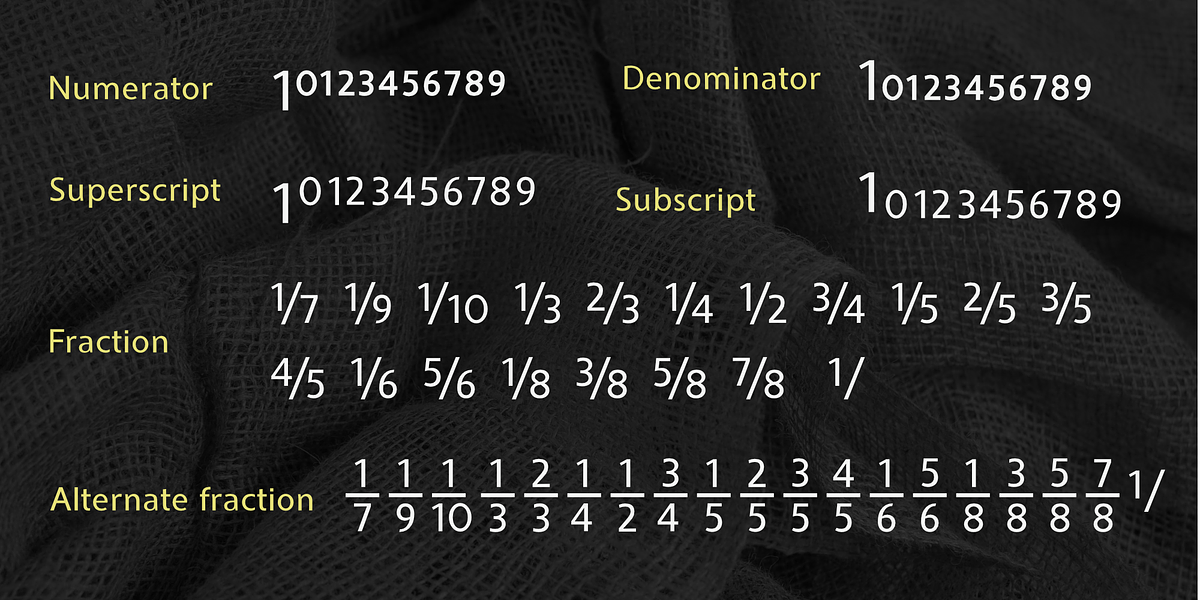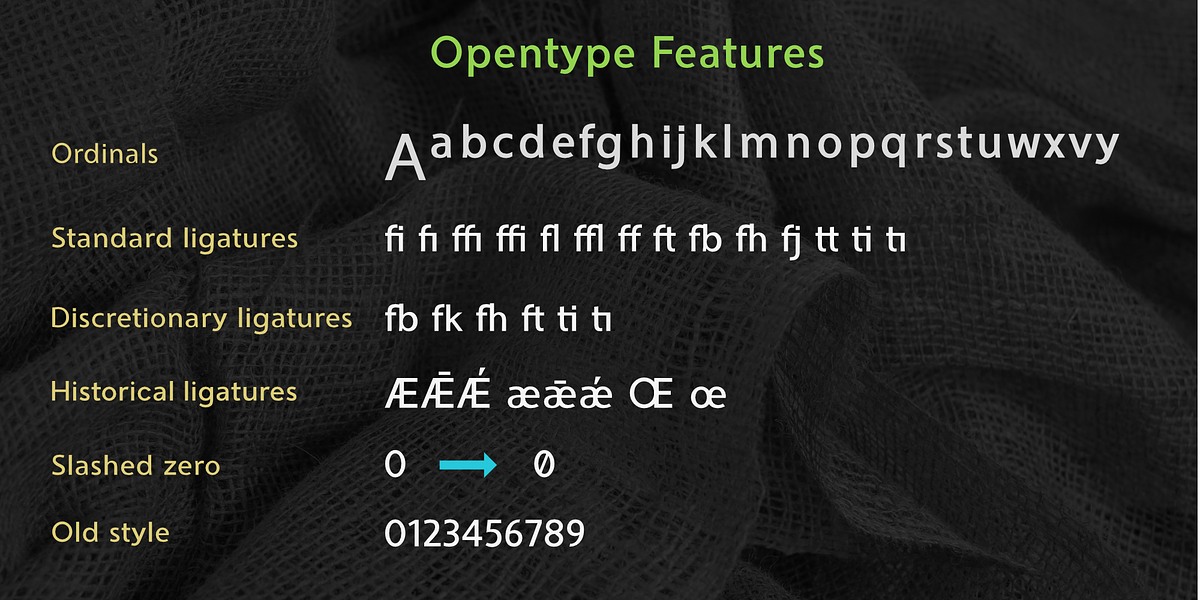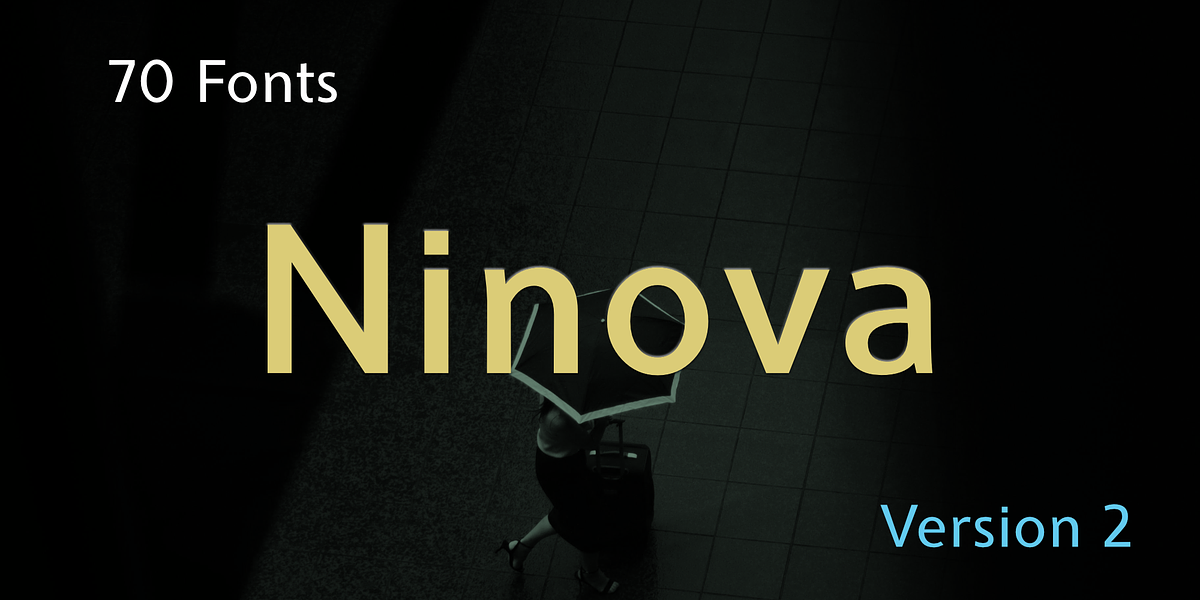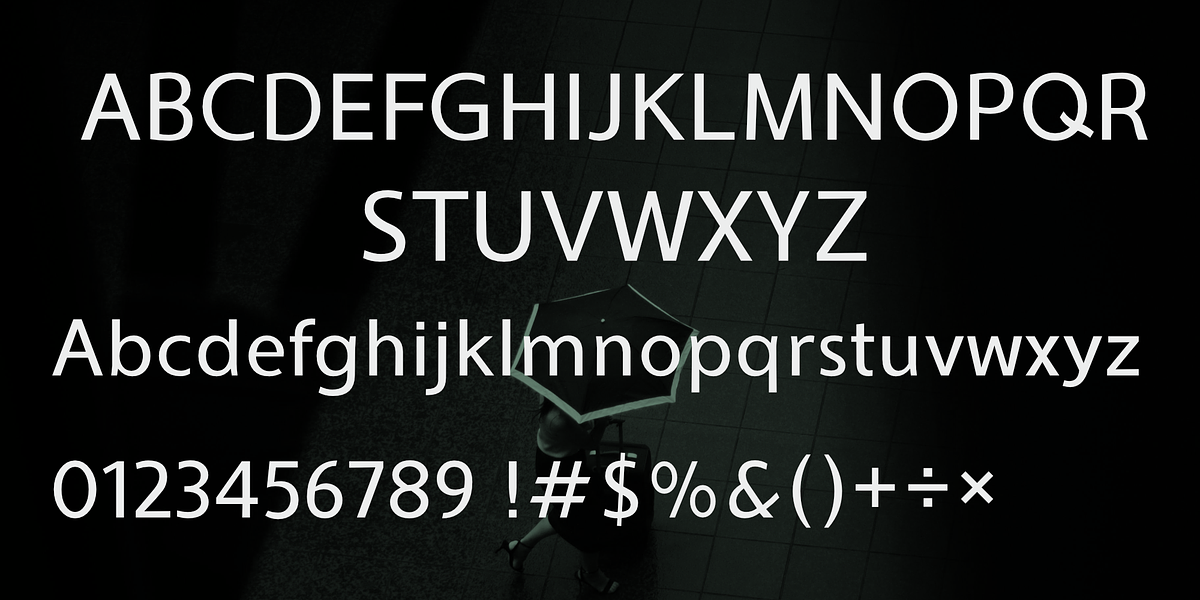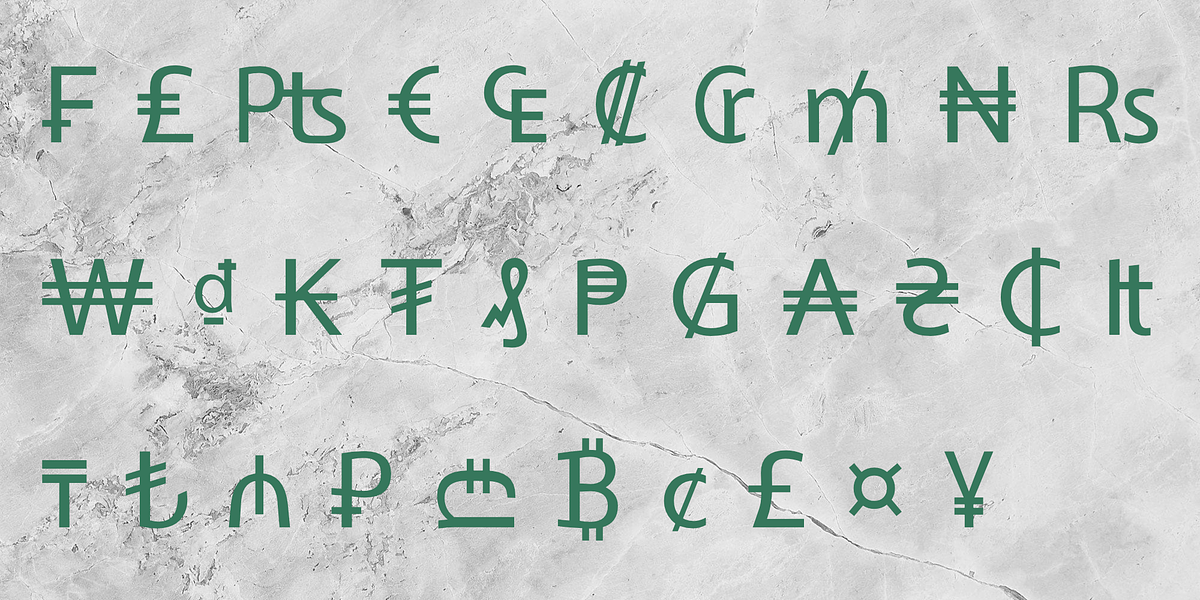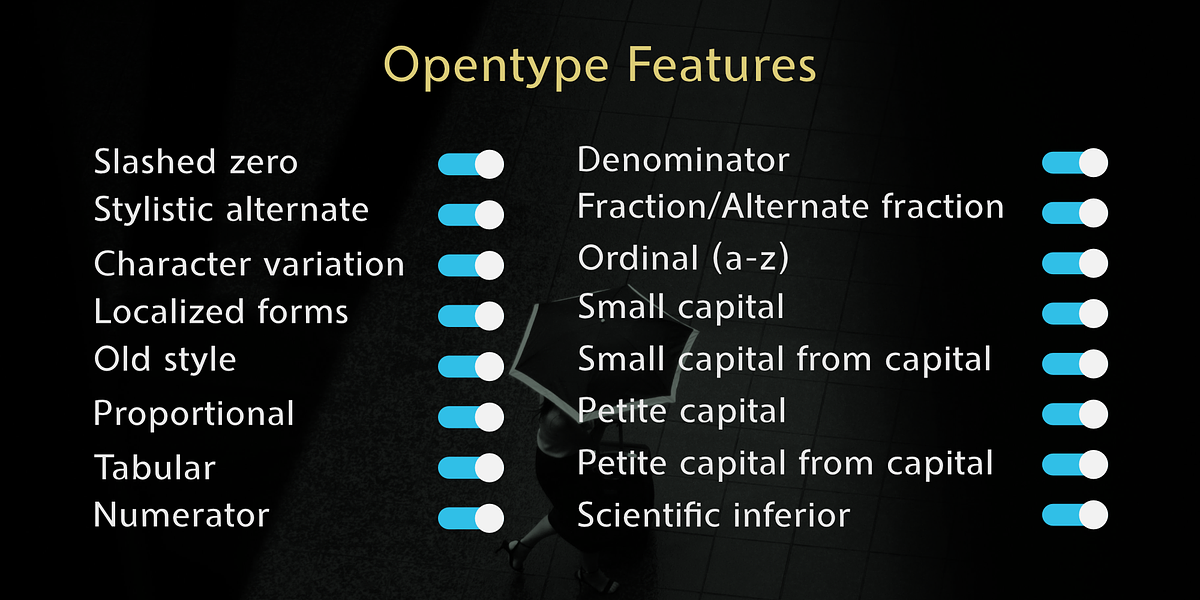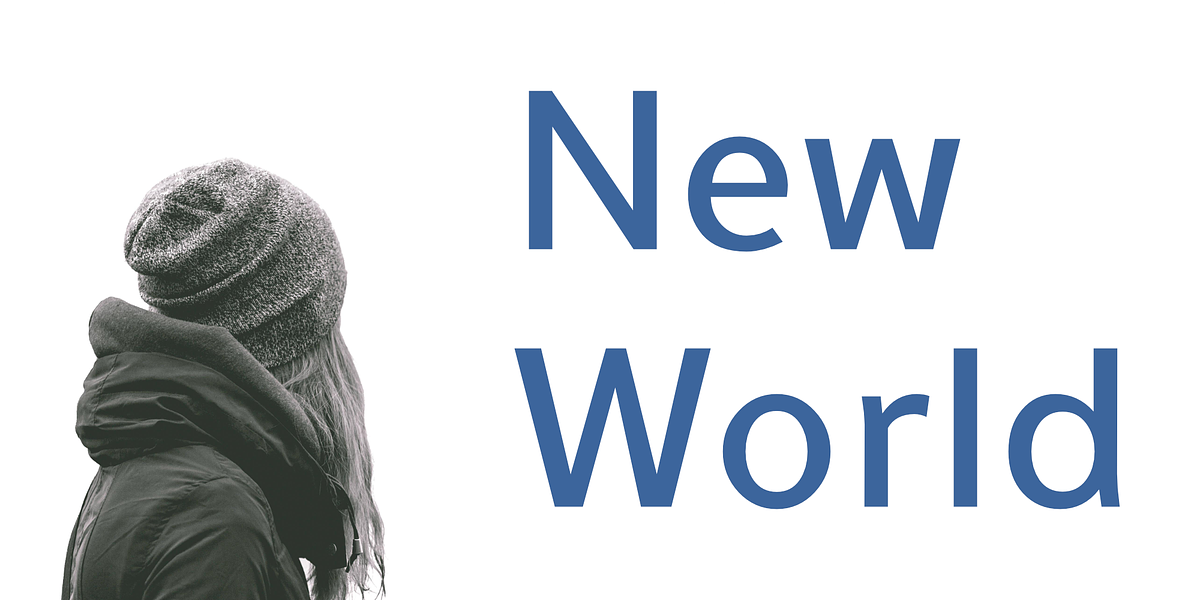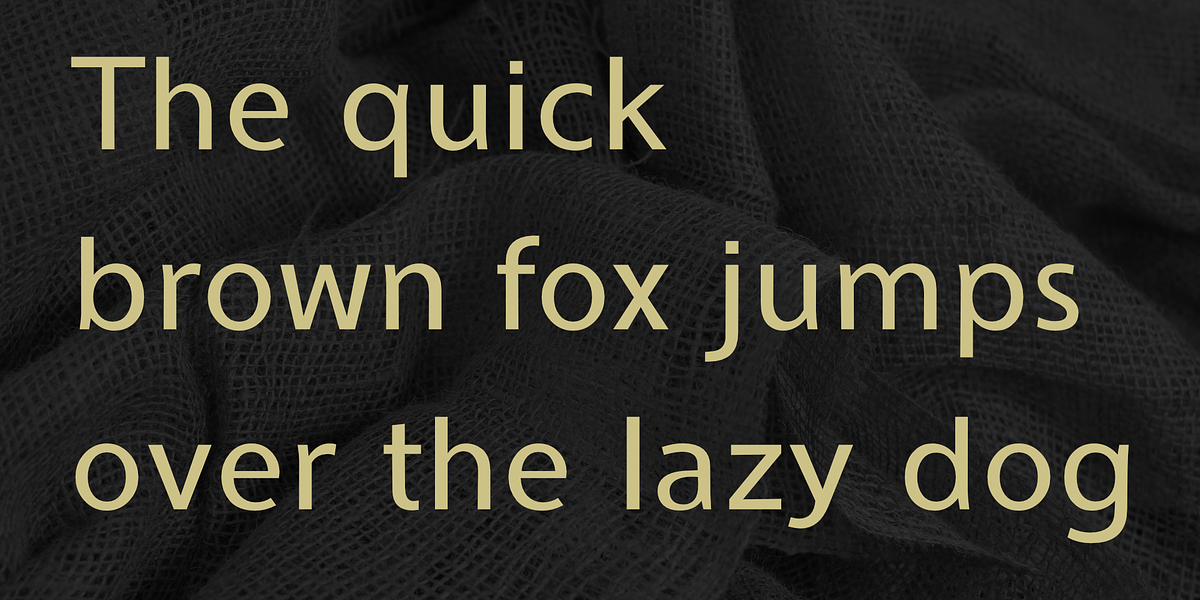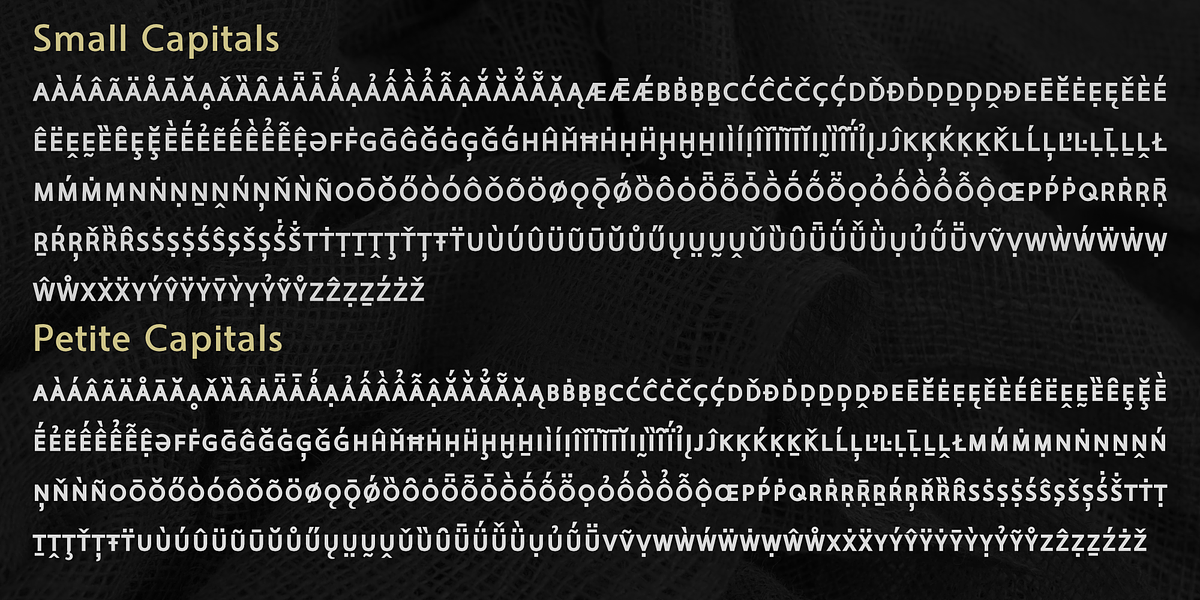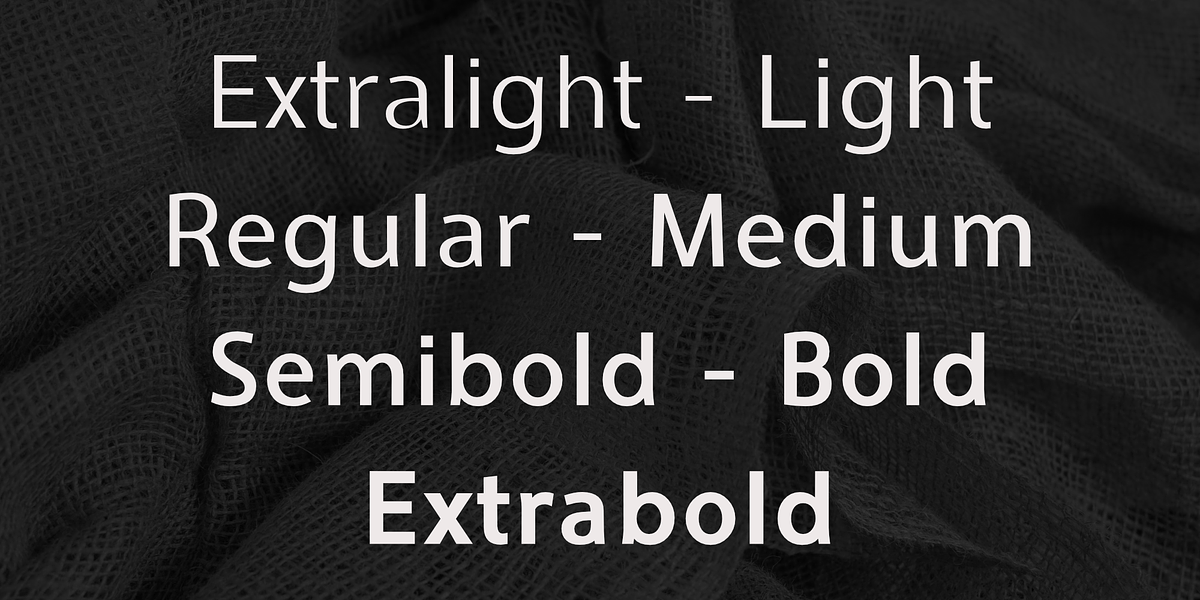
Ninova
Ninova is a comprehensive humanist sans-serif typeface family designed for versatility. It offers a range of weights from extralight to extrabold and widths spanning condensed to expanded, resulting in seventy distinct fonts. The design incorporates geometric principles while remaining highly legible. Ninova's extensive OpenType feature set further enhances its functionality, including stylistic alternates, old-style figures, fractions, ordinals, and various capital styles.